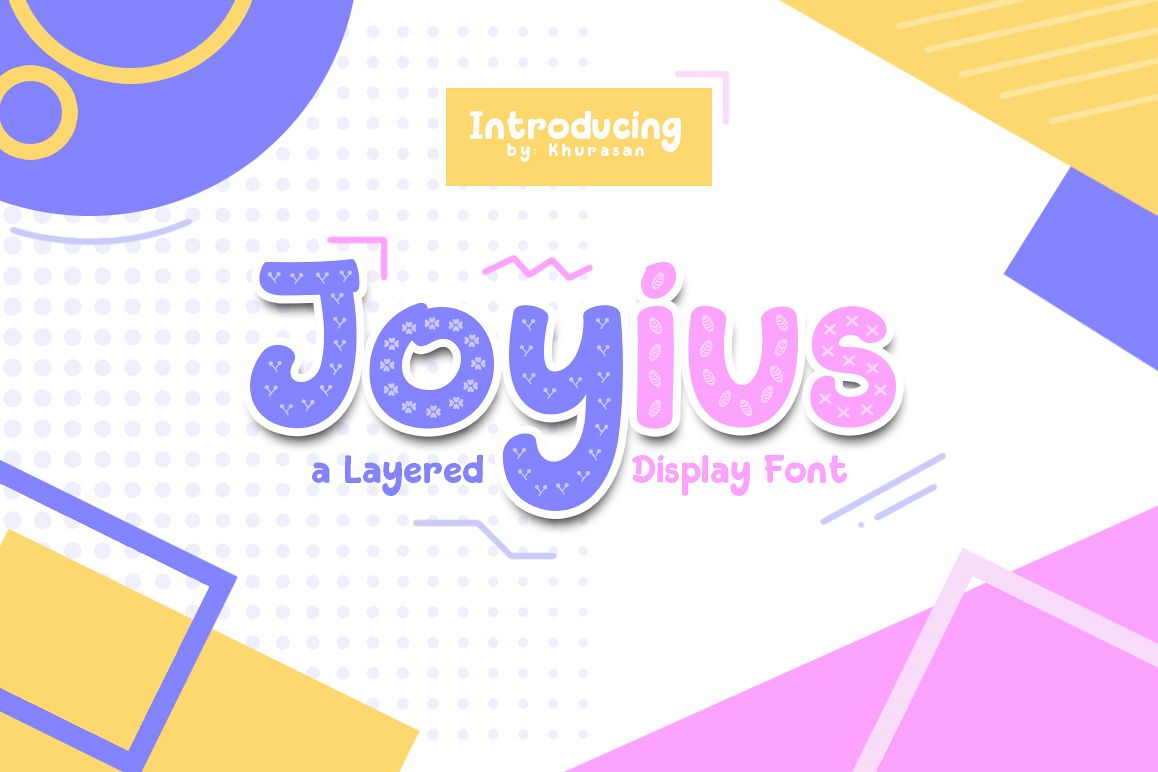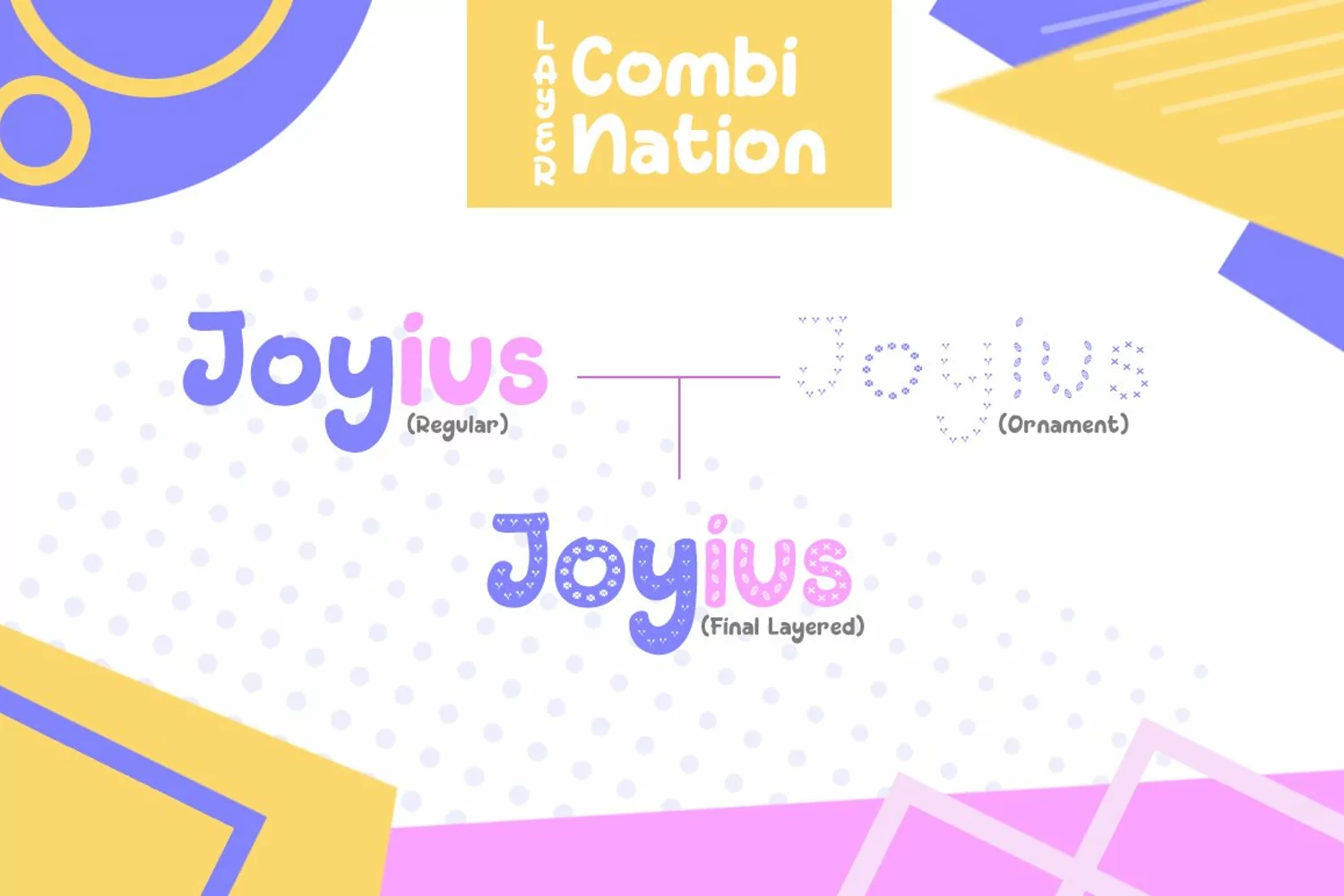
Joyius Display Font is a fun bold script font, fresh & modern style with 3 different style, regular, clean and ornament. Joyius font support multilanguage & used with layers method. Joyius Display Font suitable for logo, branding, greeting card, poster and any design that you create.